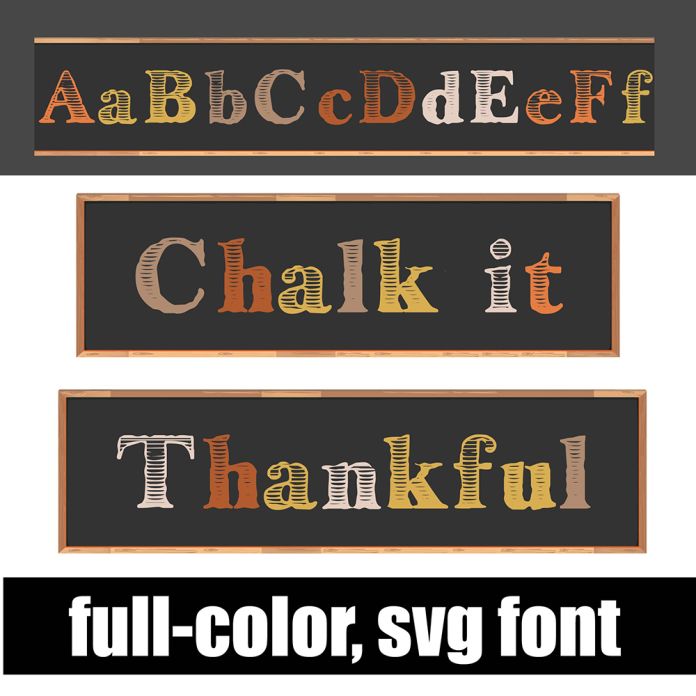
This full-color font features chalkboard-like in a Thanksgiving color palette. Type triangle glyphs for chalkboard endings and underscore for blank chalkboard. There is an alt case with additional colors you can access through your system's character map. This font works best for titles, displays, posters and more. Please note color fonts will show as black in non compatible programs. This font type is compatible with Silhouette Studio.